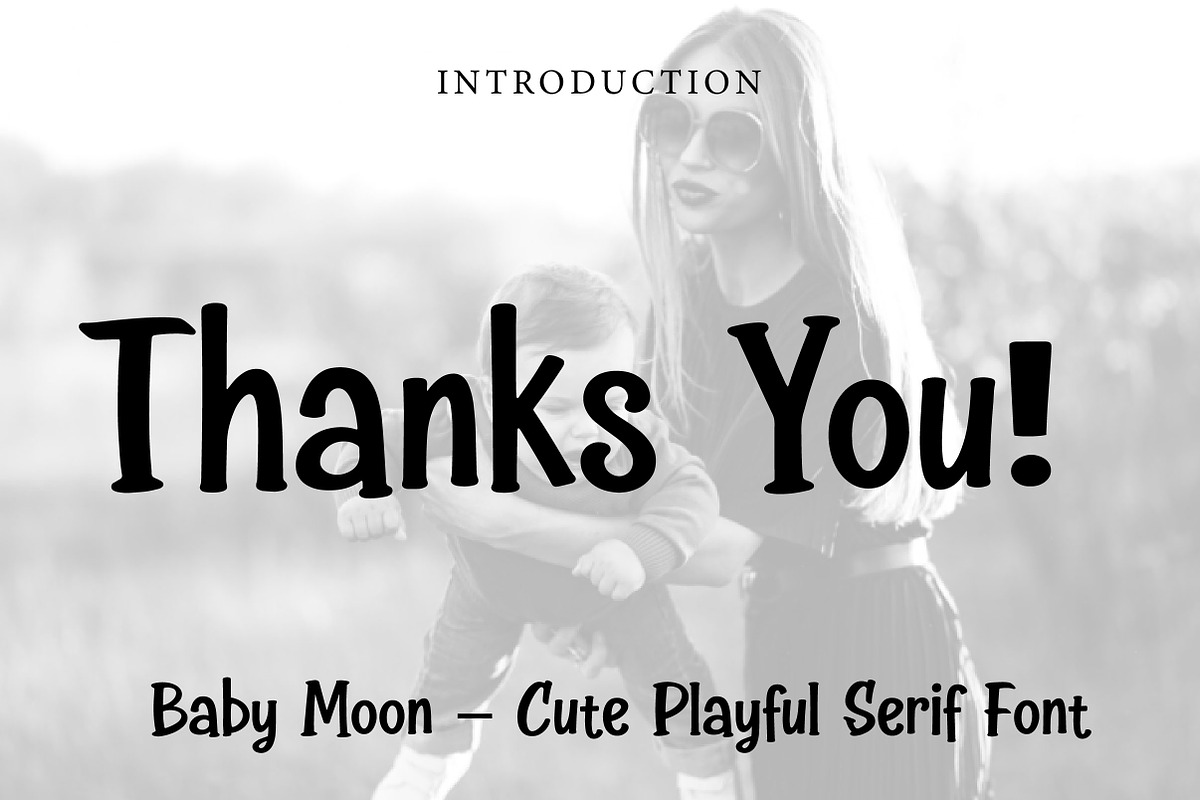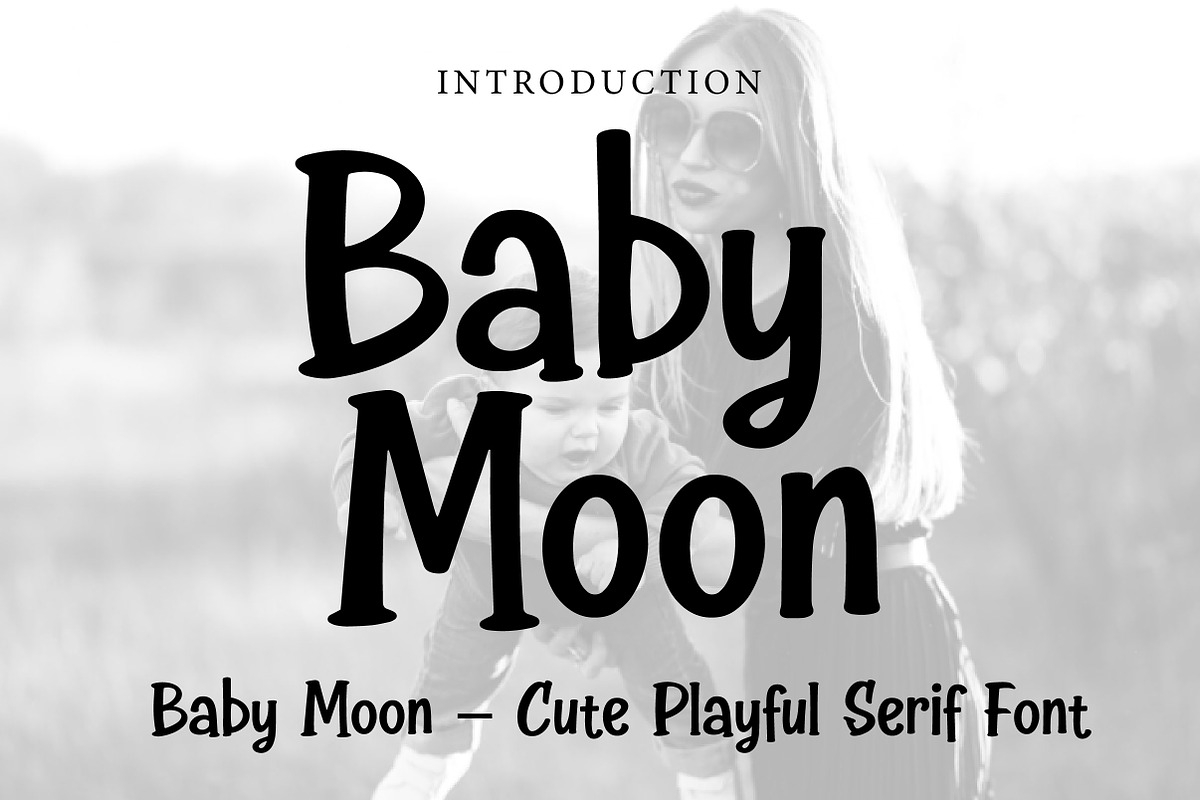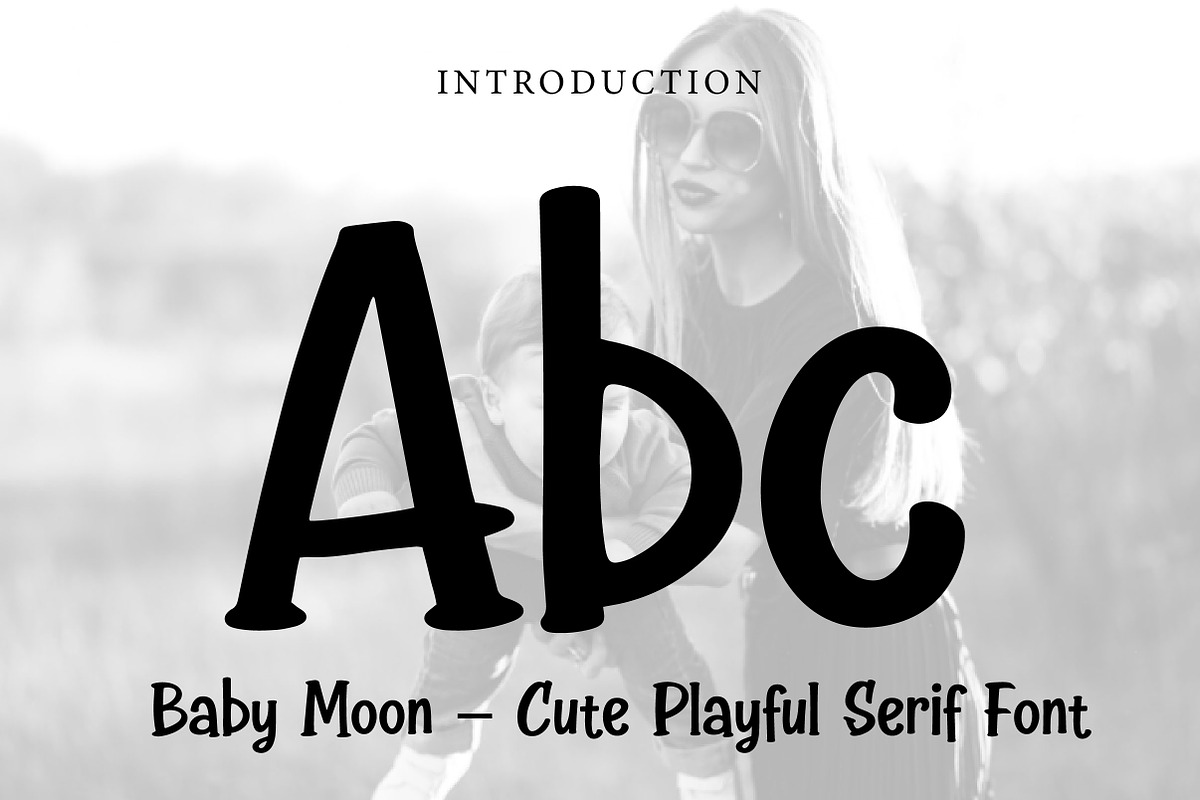
Baby Moon
Baby Moon – Cute Playful Serif Font
Baby Moon is a cute, playful, and charming serif font with a soft handcrafted feel, perfect for kids designs, branding, packaging, invitations, and cheerful creative projects.
Baby Moon is a sweet and playful serif font designed to bring warmth, joy, and charm to your designs. With its soft curves, bold shapes, and slightly handcrafted character, this font creates a friendly and delightful look that feels both cute and memorable.
Its fun serif style makes Baby Moon perfect for projects that need a playful yet stylish touch. Whether you are working on kids branding, baby products, nursery decor, invitations, packaging, posters, or social media graphics, this font helps your text stand out in a lovable and eye-catching way.
The unique letterforms give it a warm and expressive personality, making it ideal for both print and digital use. Baby Moon is a wonderful choice for designers who want a font that feels cheerful, creative, and full of character.